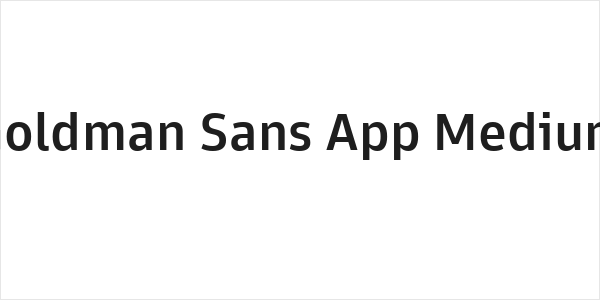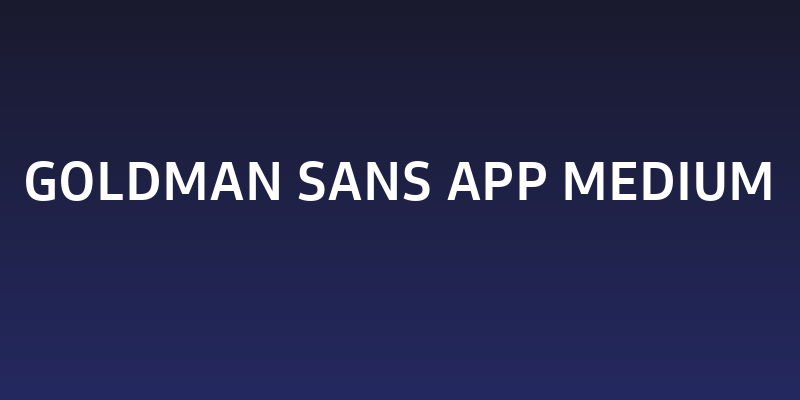
Goldman Sans App Medium Font
Goldman Sans App Medium Description
This typeface presents a clean and modern sans-serif design, characterized by its straightforward and legible letterforms. The characters exhibit a balanced proportion with consistent stroke widths, contributing to its readability across various sizes. The uppercase and lowercase letters are well-defined, with a slightly rounded appearance that softens the overall look. The numerals are clear and distinct, ensuring easy recognition. Special characters are included, maintaining the uniform style of the font. Its simplicity and clarity make it versatile for numerous applications.